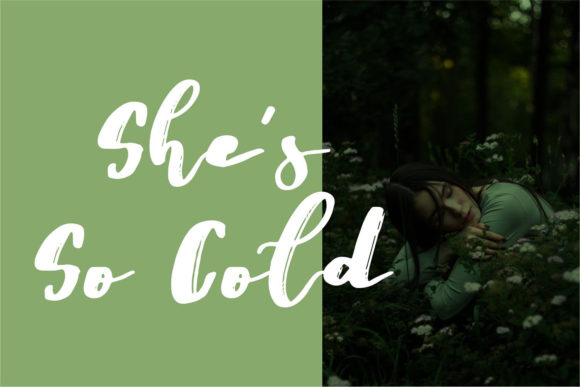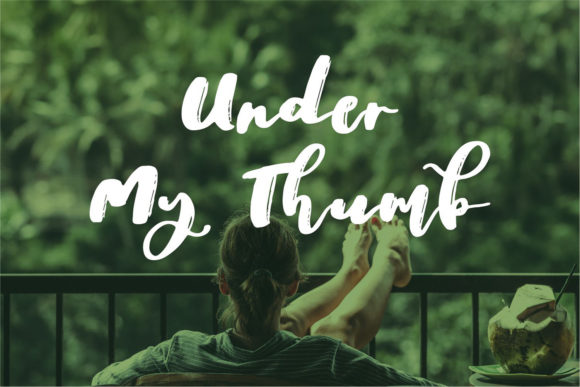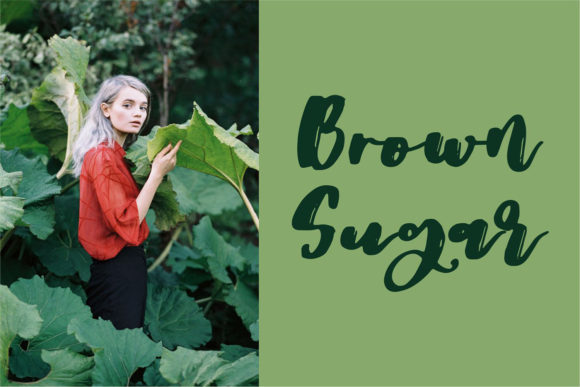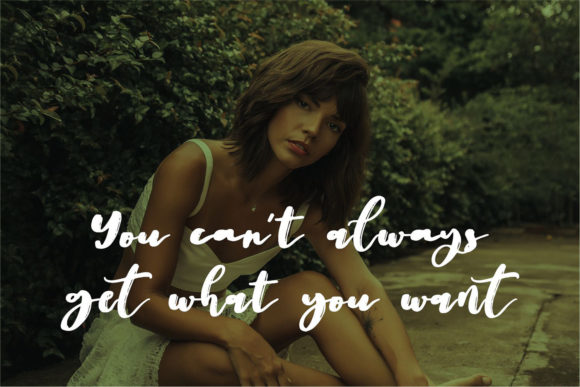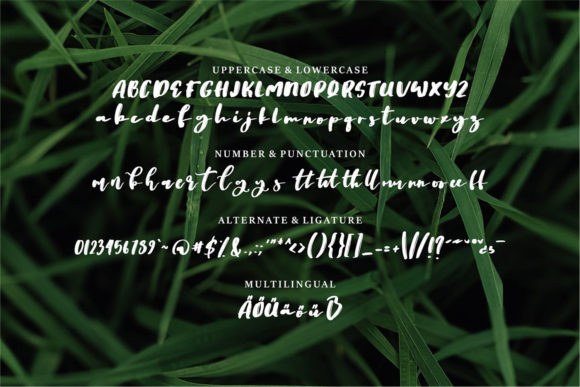
The Sweet Charm of Began Font: A Designer’s Delight
I’ll never forget the time I was working on a wedding invitation project, and my client asked for a font that was ” elegant, yet playful, and made them feel like they were reading a personal letter from their favorite aunt.” I scoured the internet, tried out dozens of fonts, but nothing seemed quite right. That was until I stumbled upon Began Font. ✨
This sweet and delicate, paint-brushed script font has been a game-changer for me. Its unique charm and character make it perfect for projects like greeting cards, branding materials, business cards, quotes, posters, and more! In this article, I’ll share my honest review of Began Font, provide a practical guide on how to use it, and explore similar fonts and alternatives.
The Good: ✨
- 💕 Beautiful, hand-painted brush strokes that give it a personal and whimsical feel
- 🎨 Highly versatile and can be used for a wide range of projects, from formal to informal
- 👍 Excellent for creating invitations, greeting cards, and other paper goods
The Not-So-Good: 🤔
- ⚠️ Limited use for very formal or corporate projects, as it may come across as too playful
- 🤔 Some users may find the font a bit too delicate or fragile for certain design applications
The Story Behind Began Font: Designer Inspiration
Began Font was created with the intention of capturing the essence of hand-painted brush strokes in a digital font. The designer, who wishes to remain anonymous, was inspired by the art of traditional calligraphy and the beauty of handwritten letters. With Began Font, they aimed to create a font that would add a personal touch to any design project.
| Font Name | Began Font |
| Author | Vunira |
Q: Is Began Font suitable for body text?
A: While Began Font is beautiful, it’s best suited for headlines, titles, and short paragraphs. Its delicate nature may make it difficult to read for longer blocks of text.